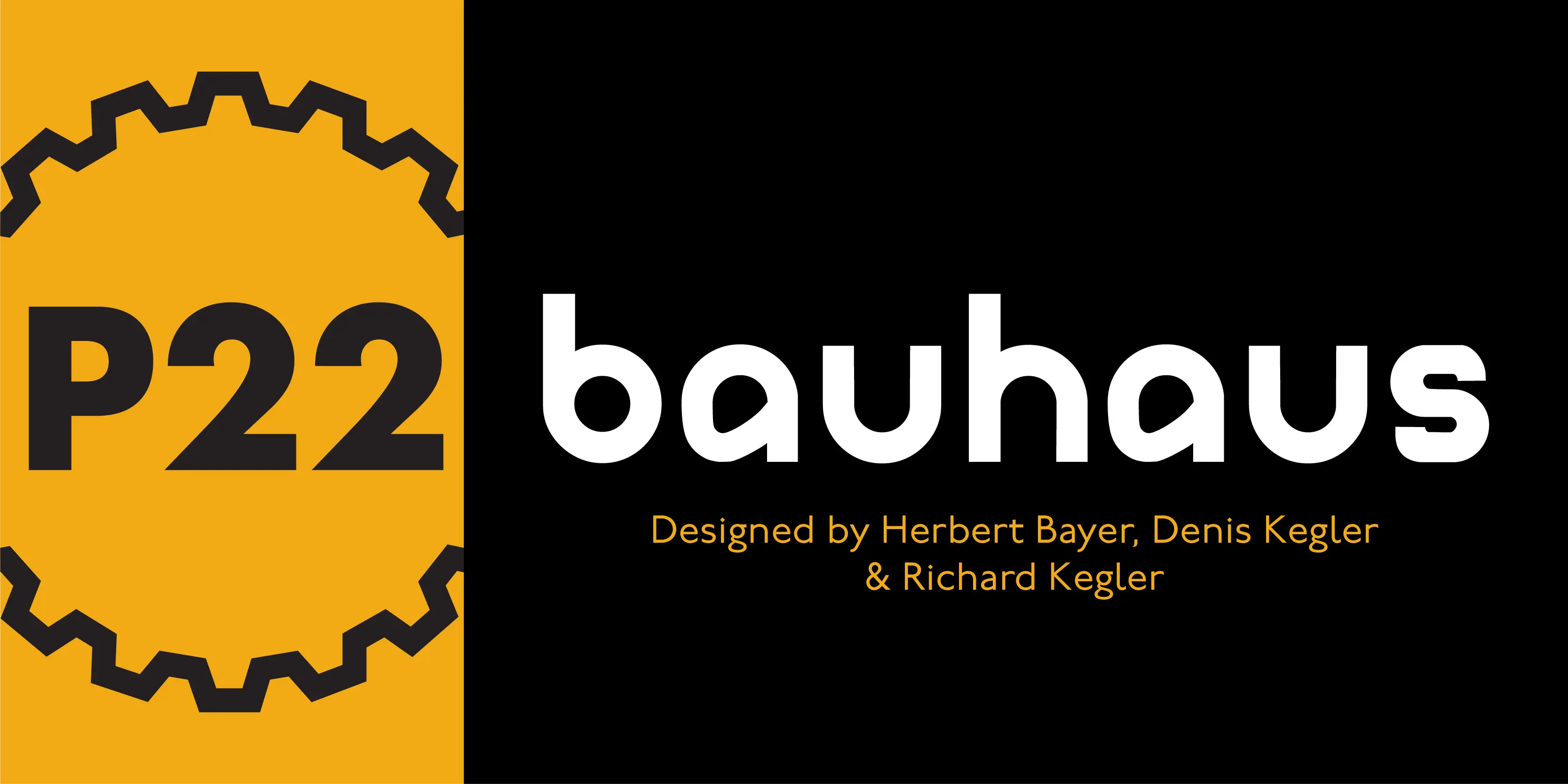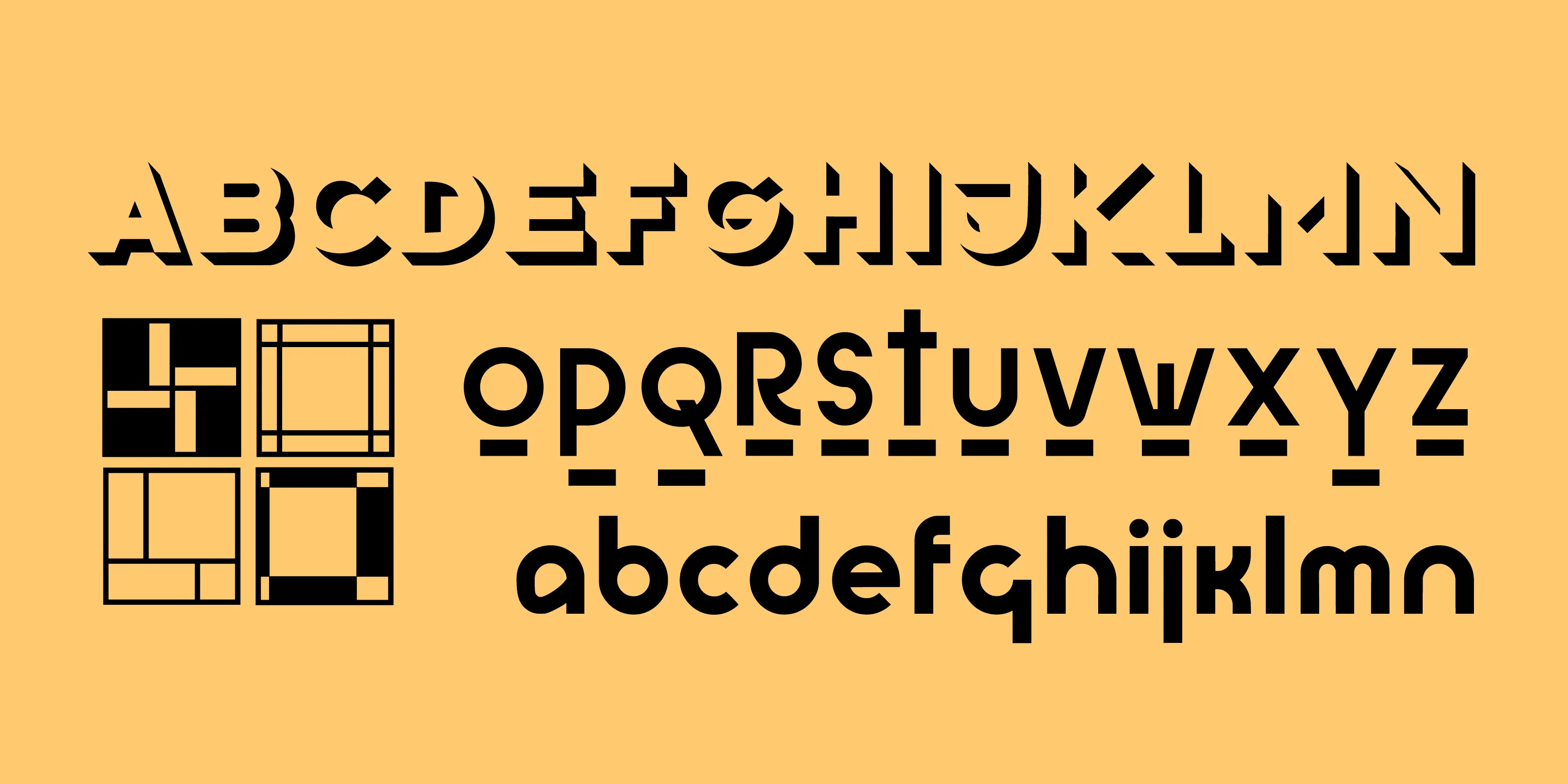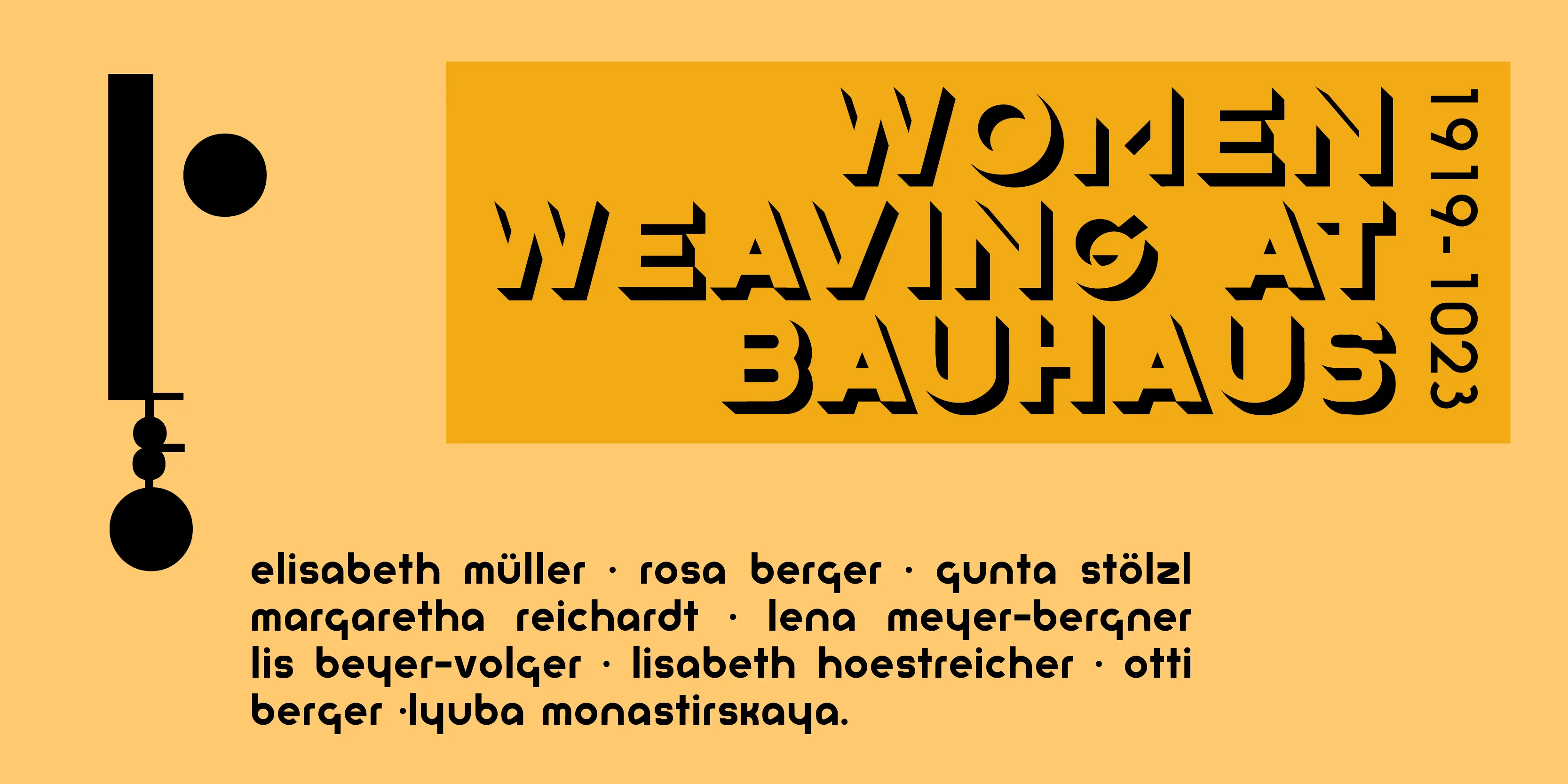
Bauhaus Font Family
• Bauhaus Bayer Fonetik
• Bauhaus Bayer Shadow
• Bauhaus Bayer Universal
• Bauhaus Extras
Bauhaus
The P22 Bauhaus Set includes three type faces designed by Herbert Bayer, including the famous Universal font most commonly associated with the Bauhaus school. A collection of 72 graphic elements inspired by various Bauhaus works rounds out this collection. This set is authorized by the Herbert Bayer Estate. For more typefaces from the Bauhaus, see our Josef Albers set.